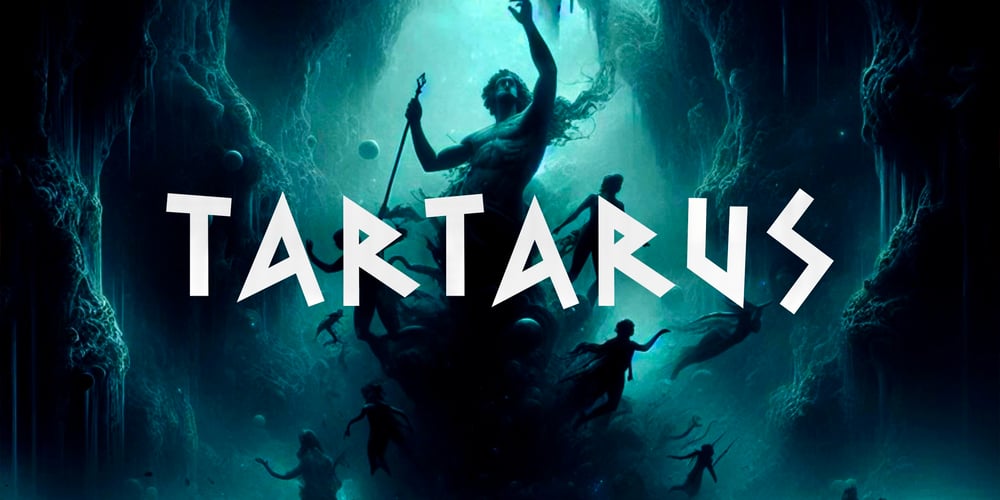
Tartarus Font Family was designed by Ioanna Ladopoulou and published by Joanna Vu. Tartarus contains 3 styles and family package options. “Tartarus” is a minimal, geometric font, inspired by Ancient Greece, and designed so that it resembles Ancient Greek decorations (such as meanders, inscriptions on ancient ruins etc)Whether you wish to design something related to Ancient Greece or simply make a statement, “Tartarus” has got you covered.Its simple, bold lines make the font ideal not only for logos, headlines etc, but also for longer text.Supports most latin-derived languages, as well as Greek and Cyrillic.